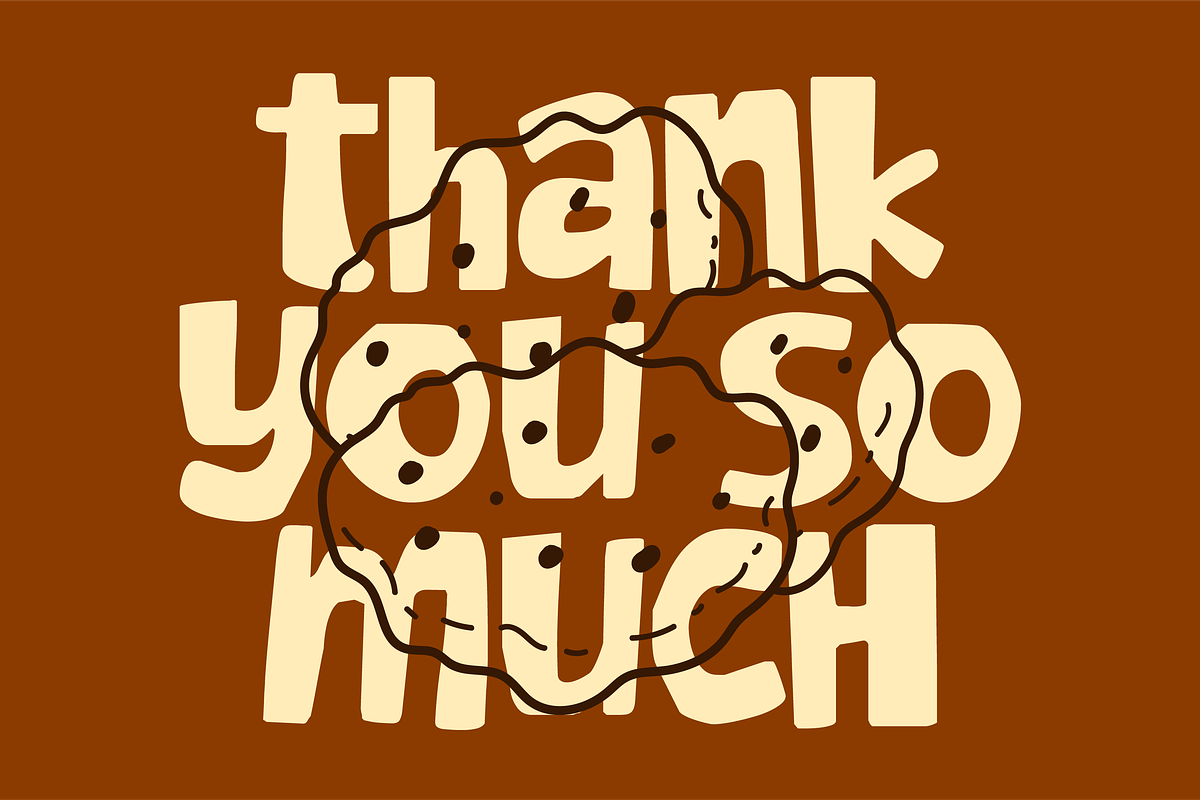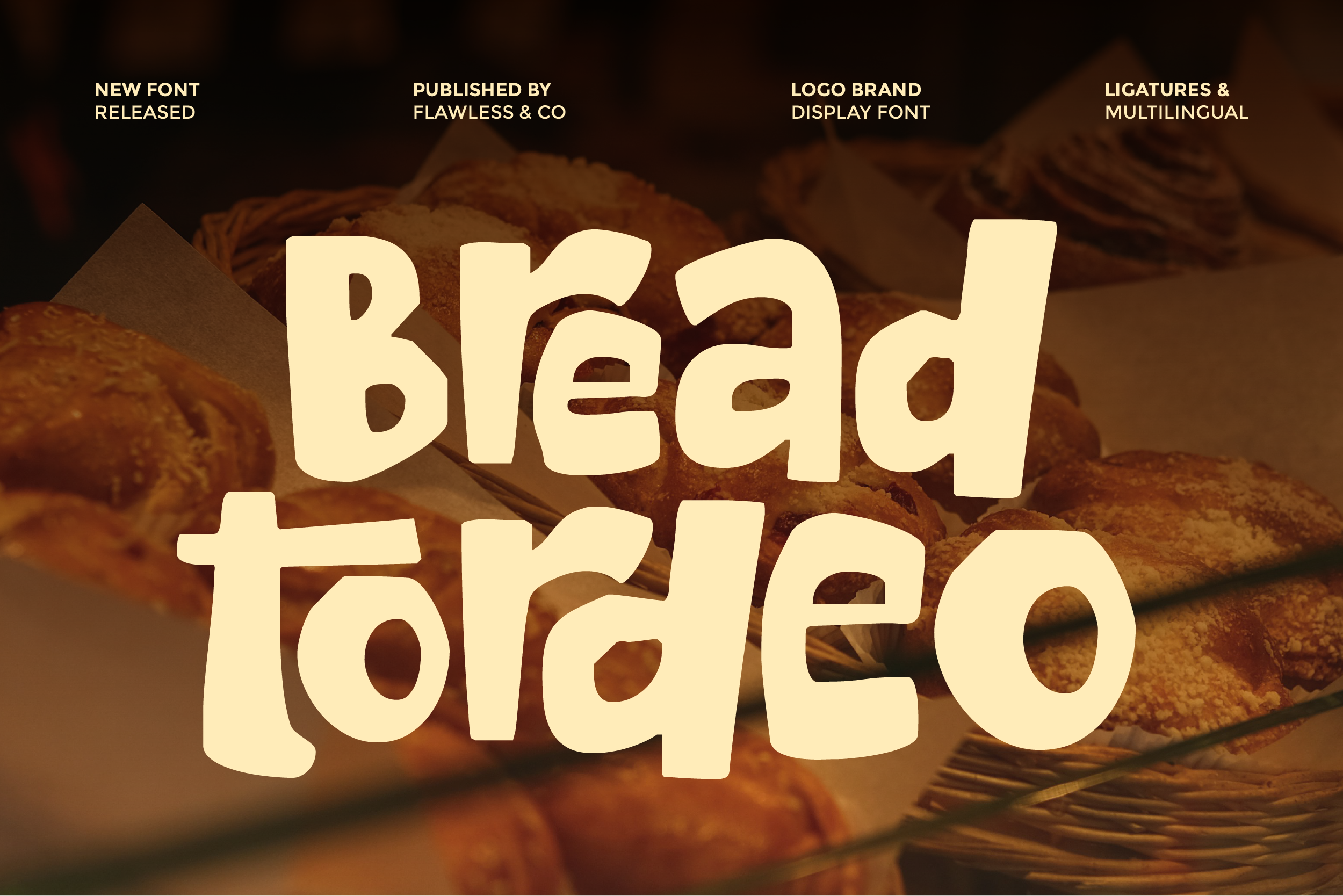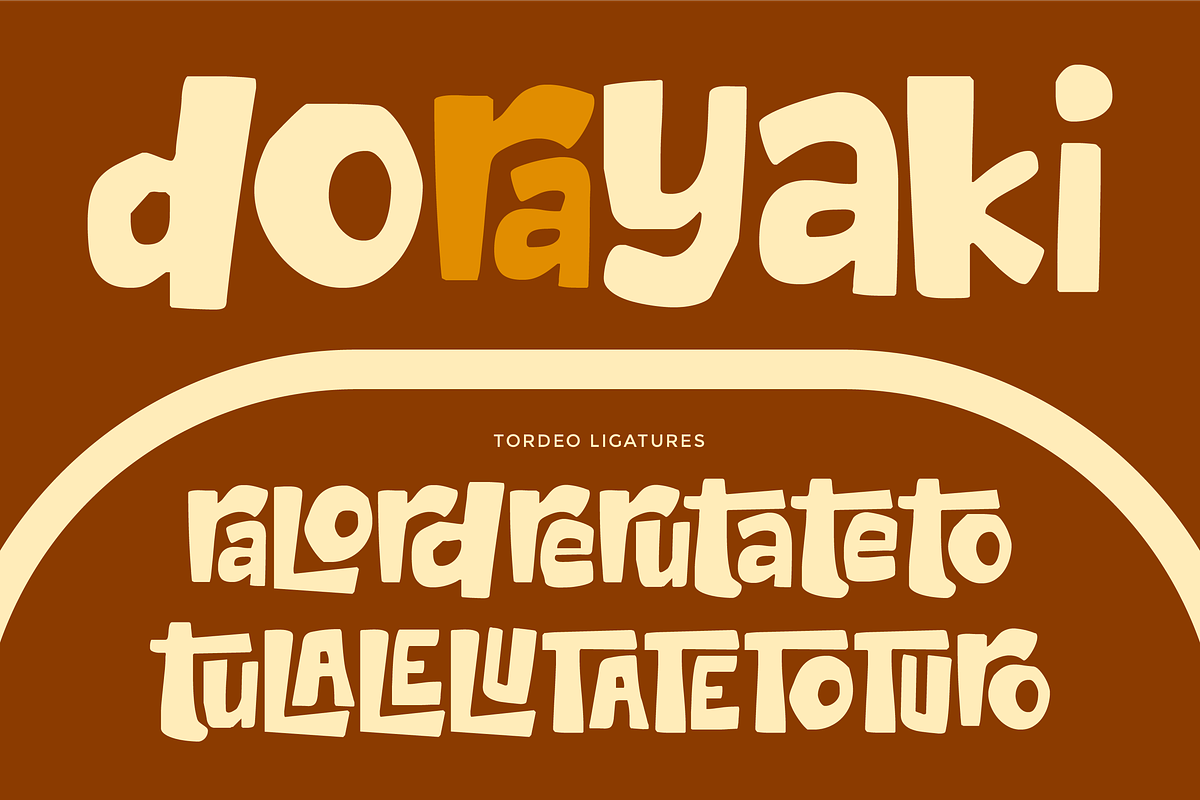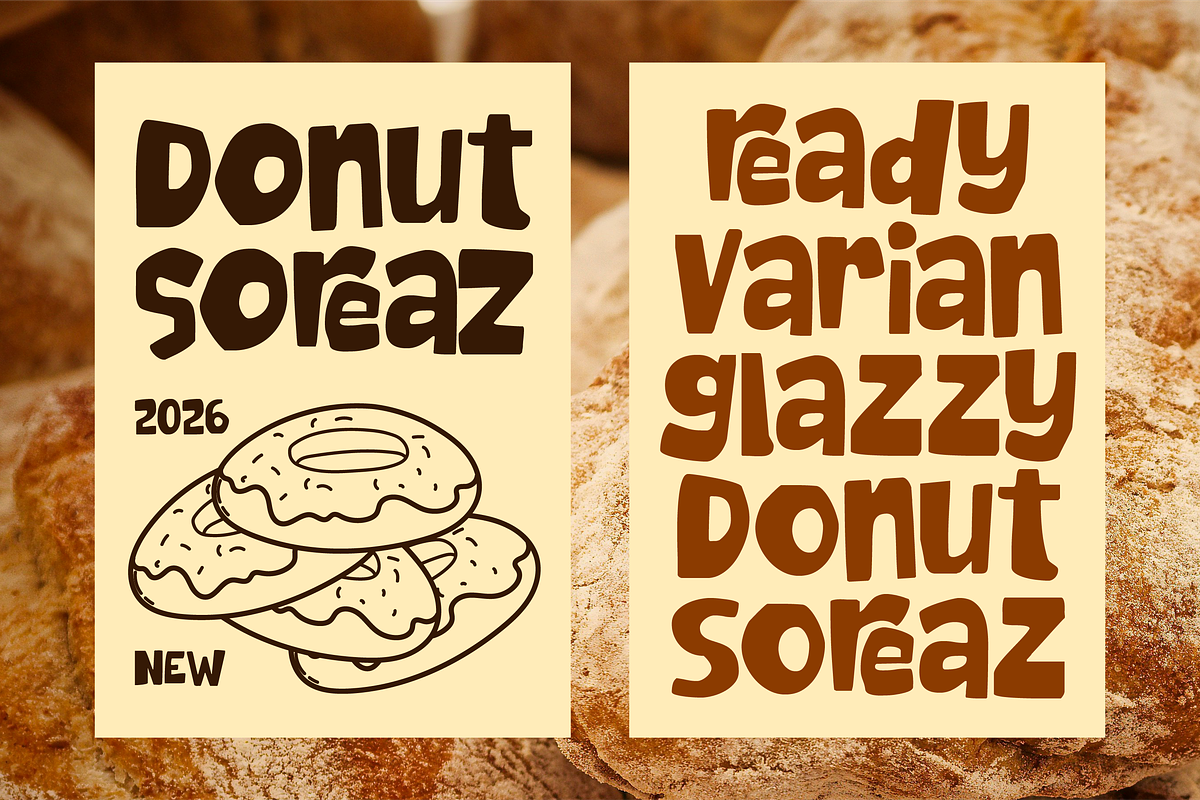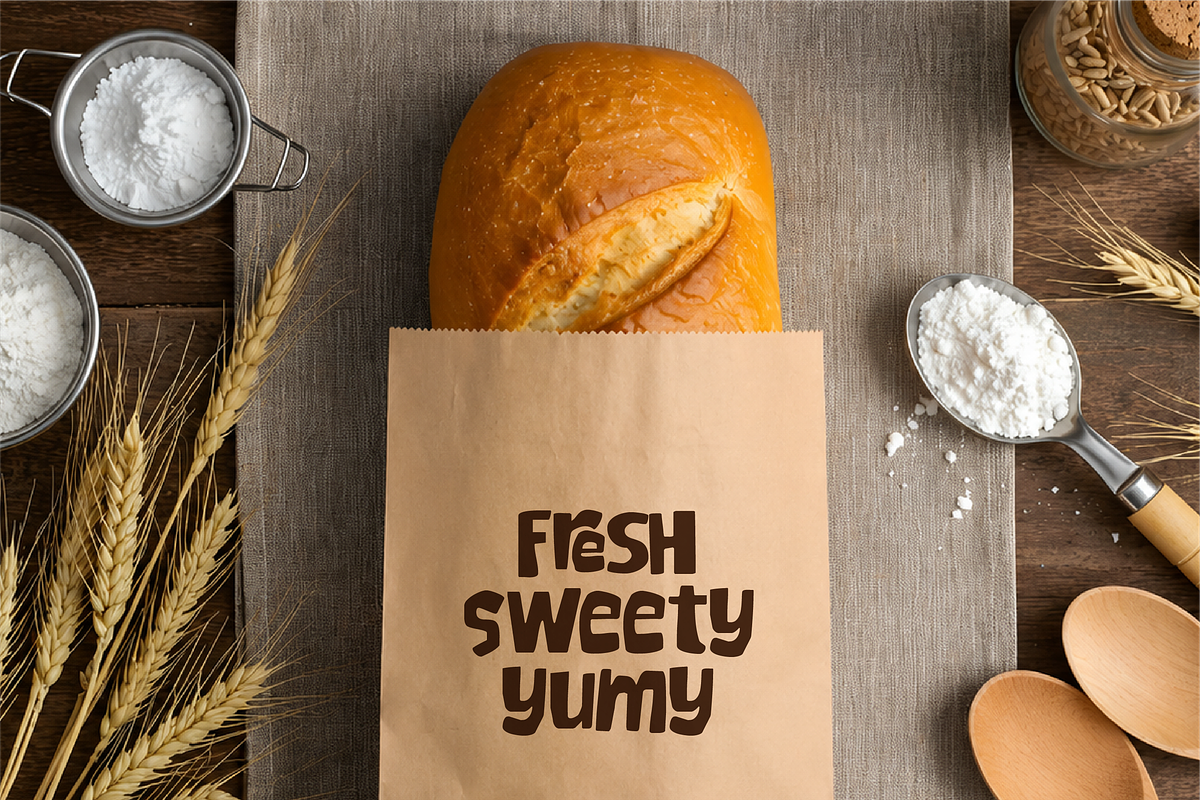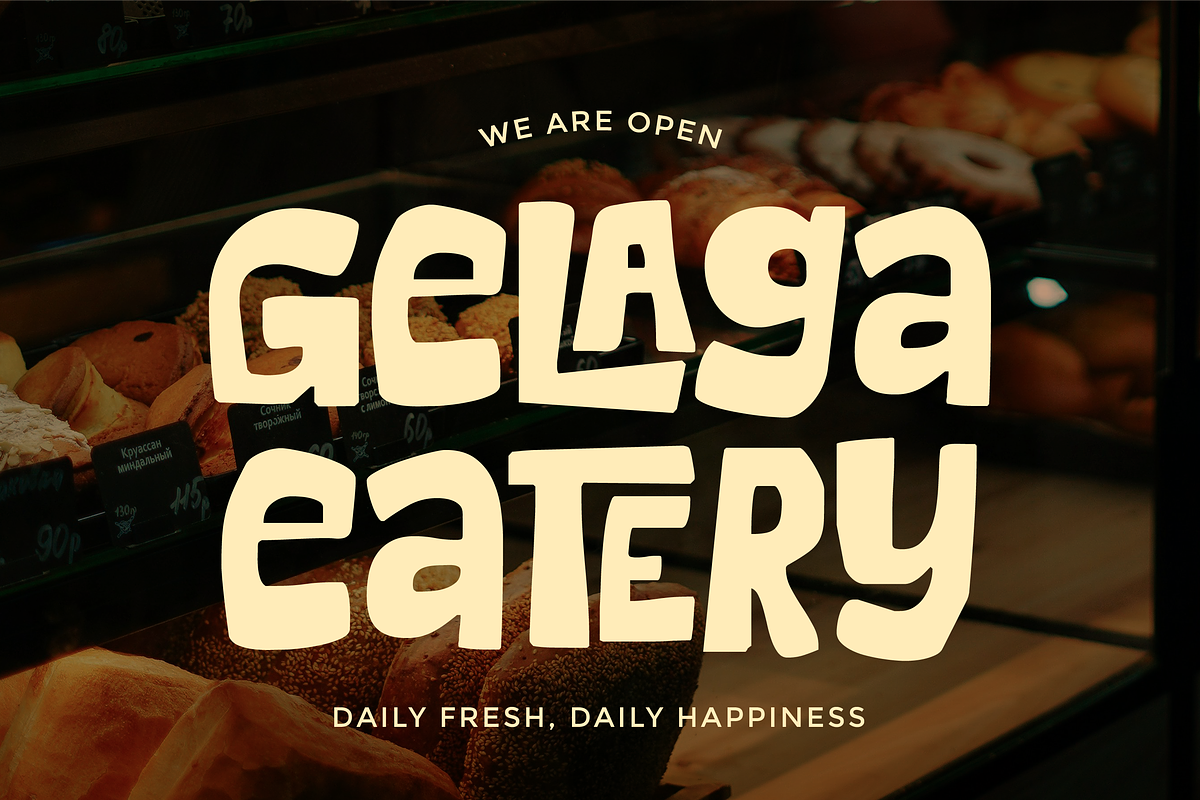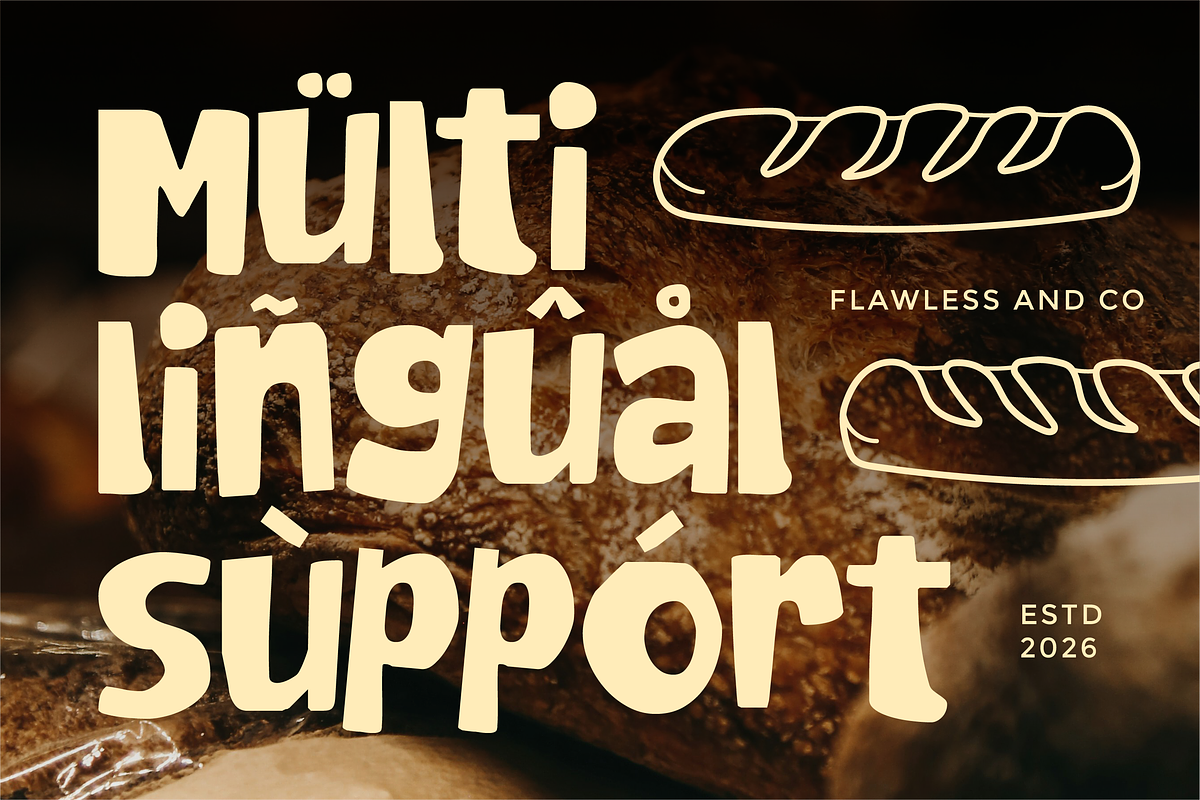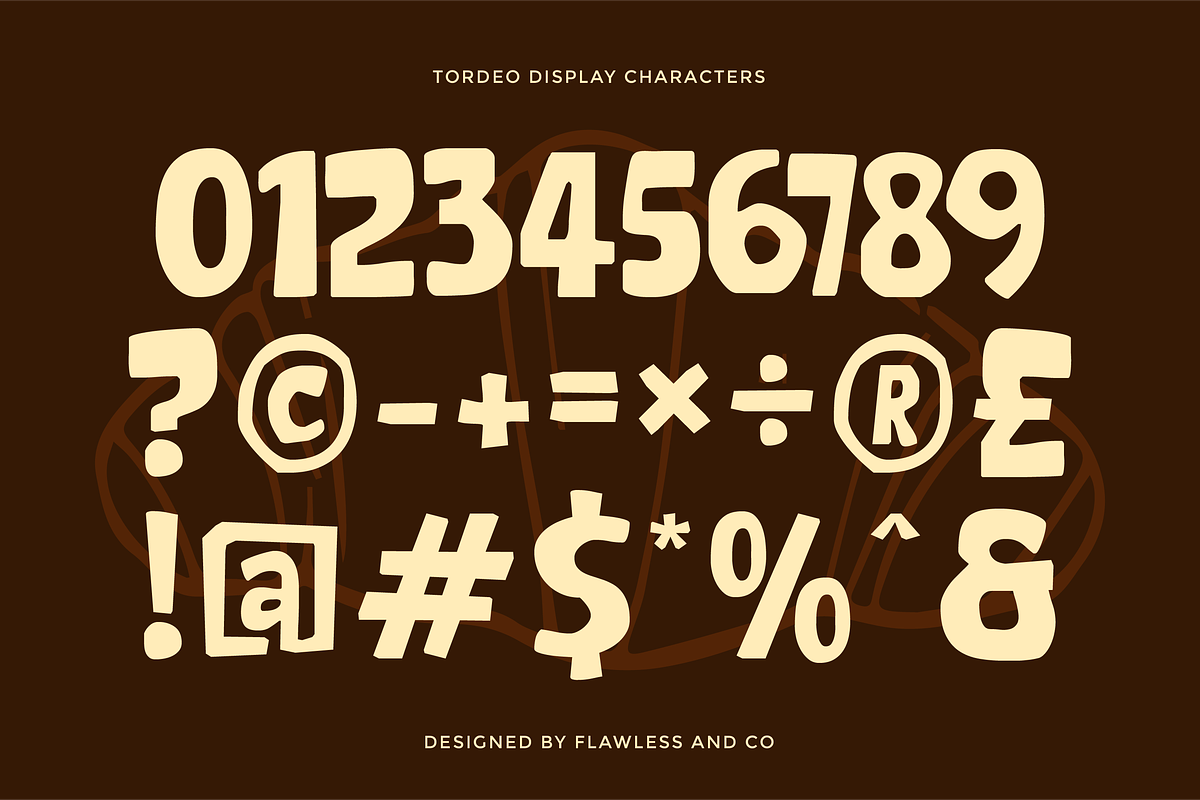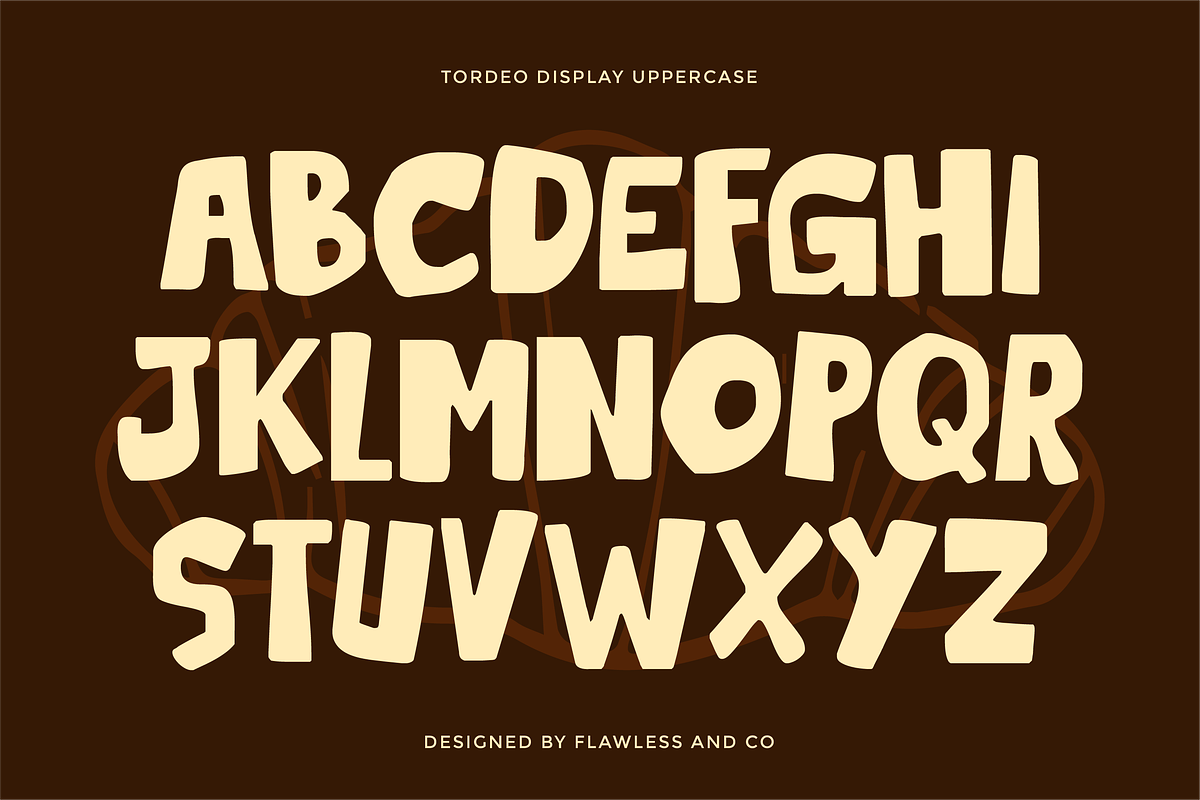
Tordeo - Unique Display Font
Tordeo is a unique display typeface designed to deliver bold creativity and unforgettable visual impact. Featuring distinctive letterforms, artistic shapes, and expressive details, Tordeo creates a striking appearance that instantly stands out in any design. Its modern and unconventional style brings strong personality and originality, making it perfect for projects that demand attention and creative expression. Whether for branding, posters, packaging, or digital content, Tordeo adds a fresh and dynamic typographic character to every composition.
Alternates & Ligatures
Who Should Use Tordeo?
Tordeo is ideal for designers, creatives, and brands who want typography with a bold and artistic personality. It’s especially suited for projects that require unique display lettering with high visual impact and modern creative style.
Suitable For:
Creative branding and logo design
Poster and promotional materials
Packaging and product labels
Editorial and magazine headlines
Food and entertainment visuals
Event and festival design
Unique display typography